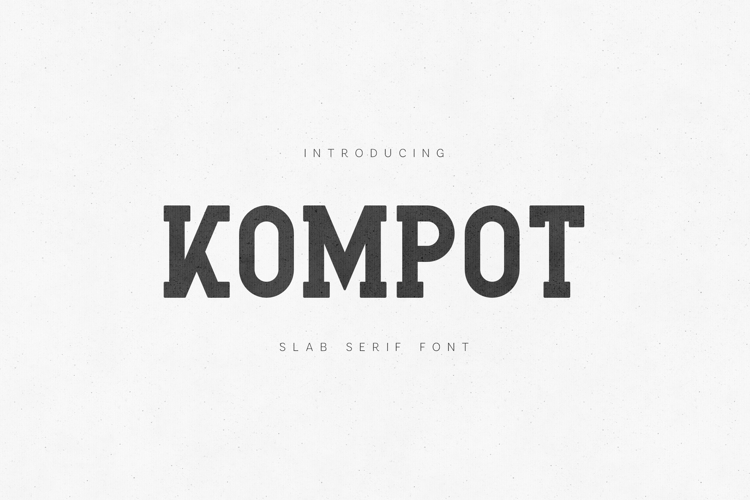
Kompot Bold Slab Serif Font
Kompot is a bold slab serif font designed with strength, confidence, and timeless character. Its solid letterforms, heavy slabs, and balanced proportions give it a powerful visual presence while maintaining clarity and readability.
Inspired by classic editorial typography and vintage print aesthetics, Kompot is ideal for posters, headlines, branding, packaging, logos, signage, apparel, and bold marketing materials. It excels in designs that need impact, authority, and a slightly nostalgic tone without feeling outdated.
The font includes a full character set with uppercase and lowercase letters, numerals, punctuation, symbols, and extensive multilingual support, making it suitable for international and professional use.
If you’re looking for a slab serif font that feels bold, expressive, and built to stand out, Kompot delivers strong typography with lasting impact.